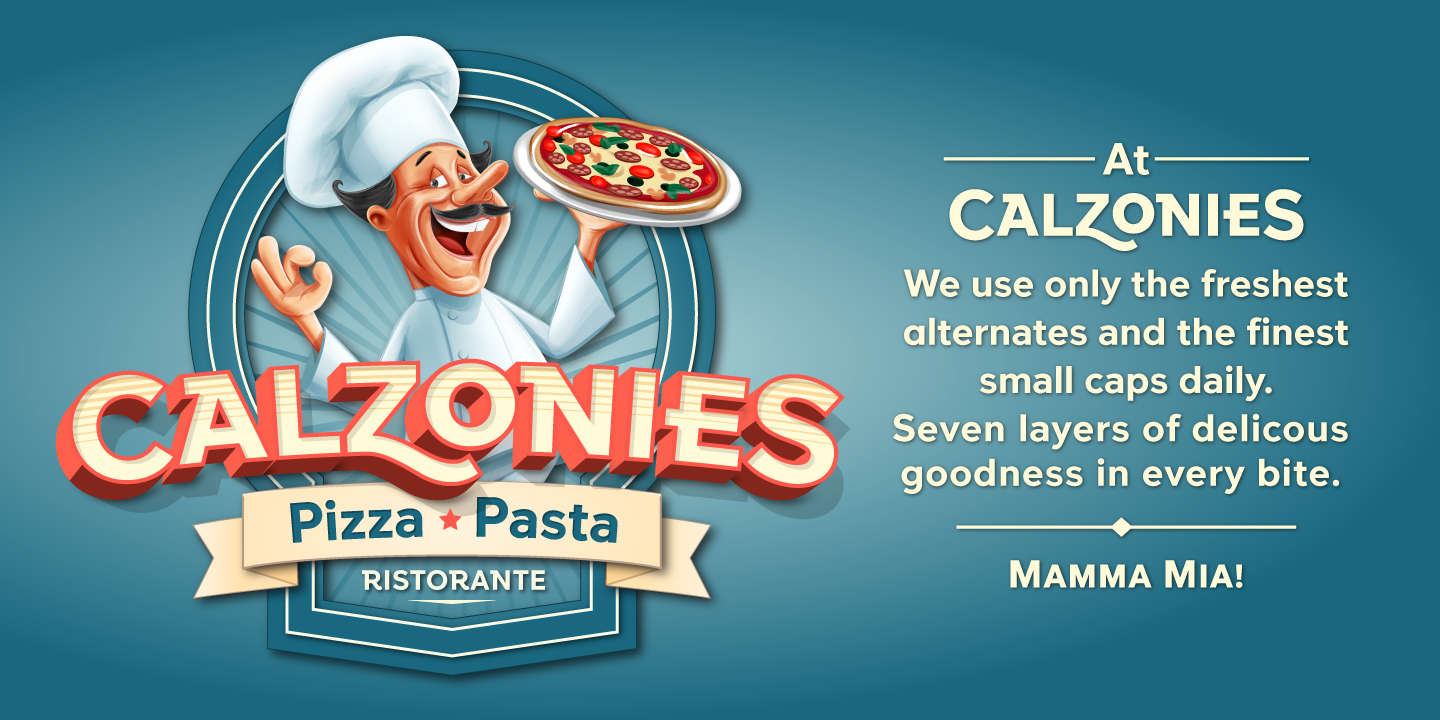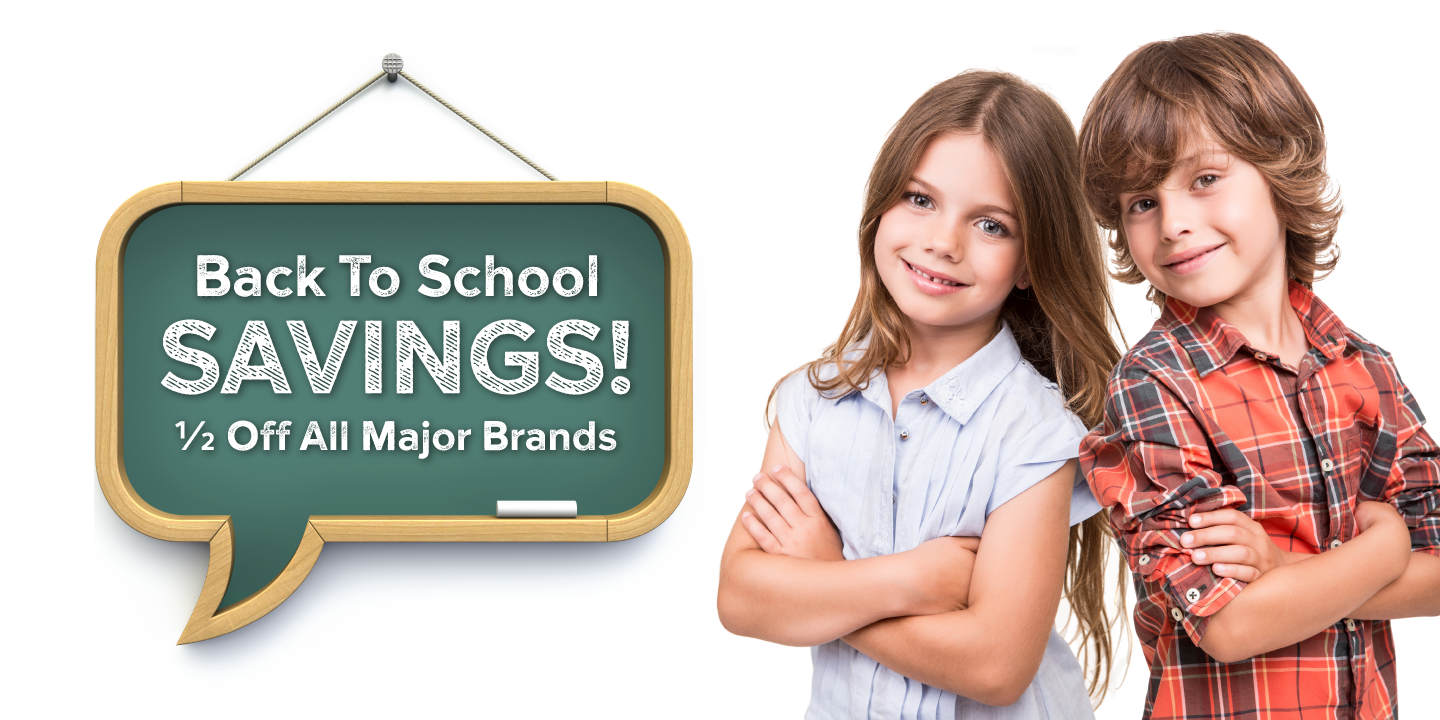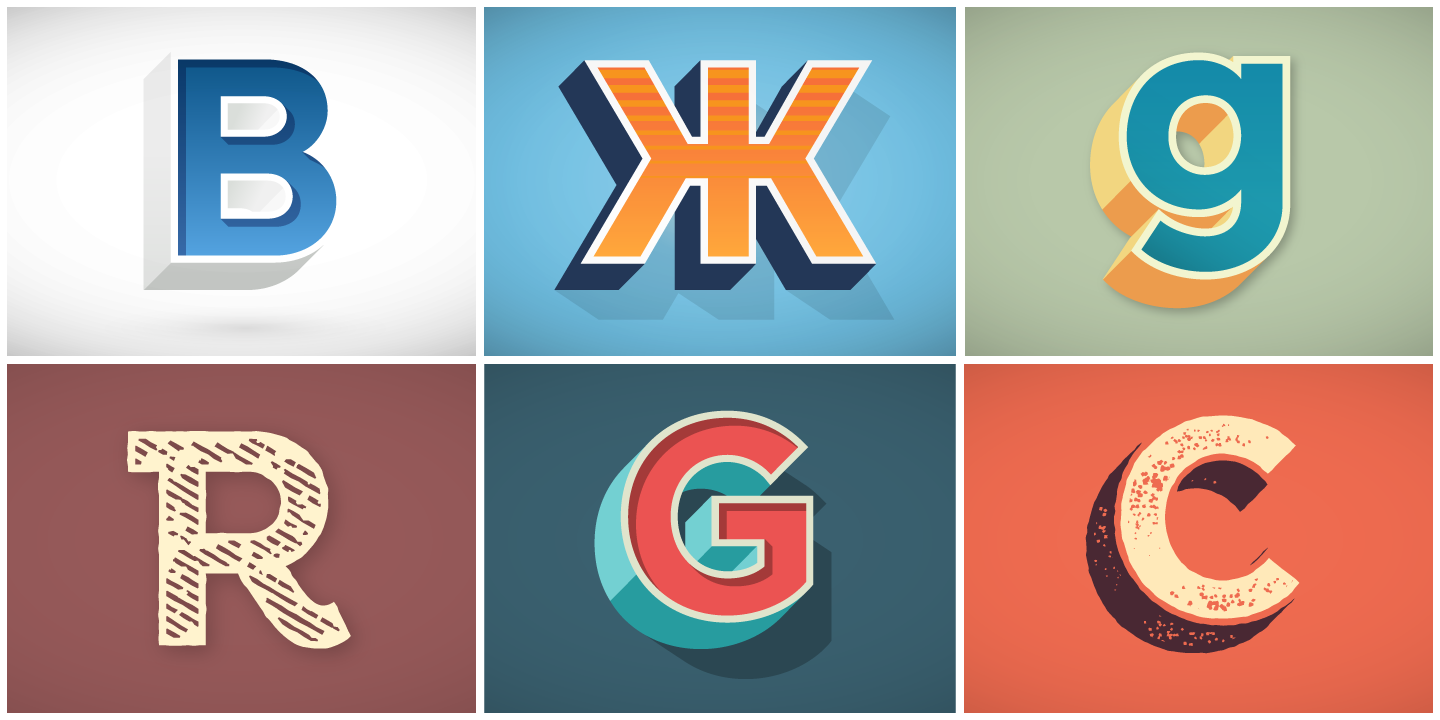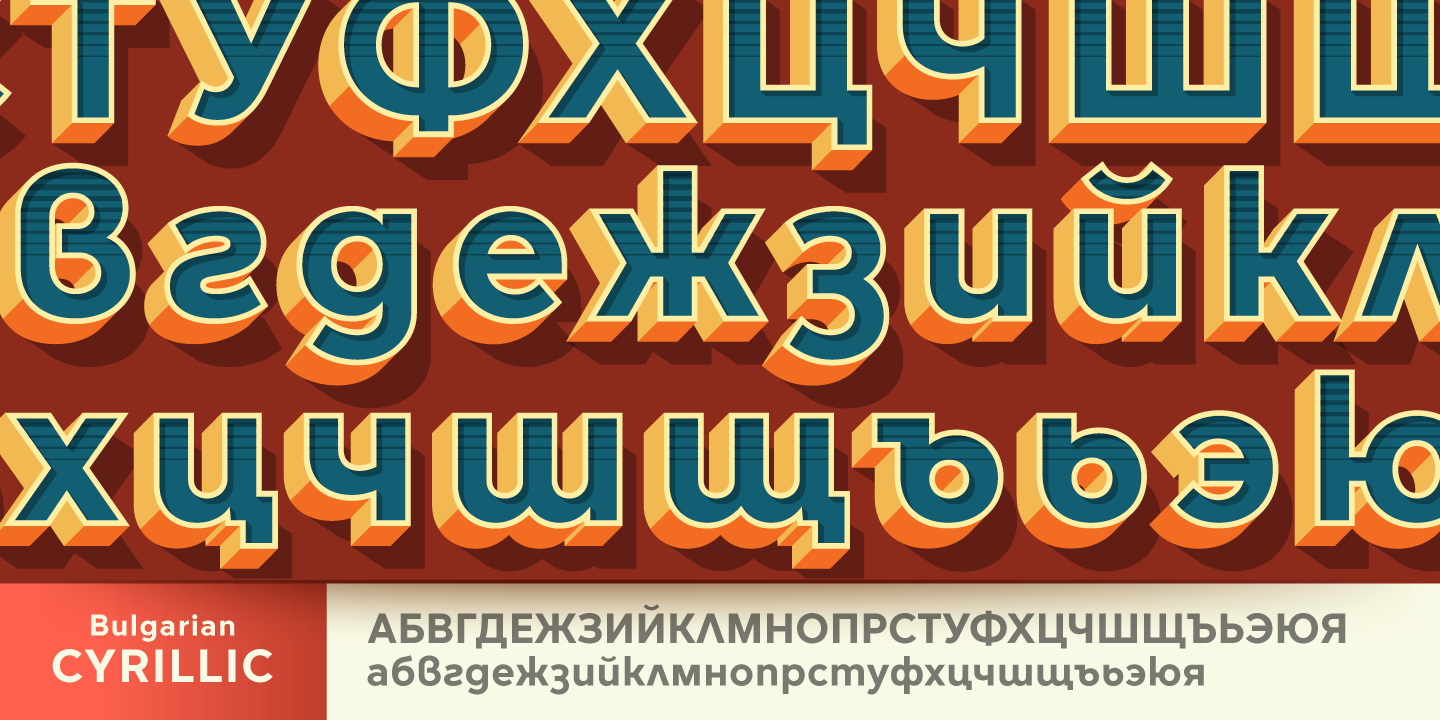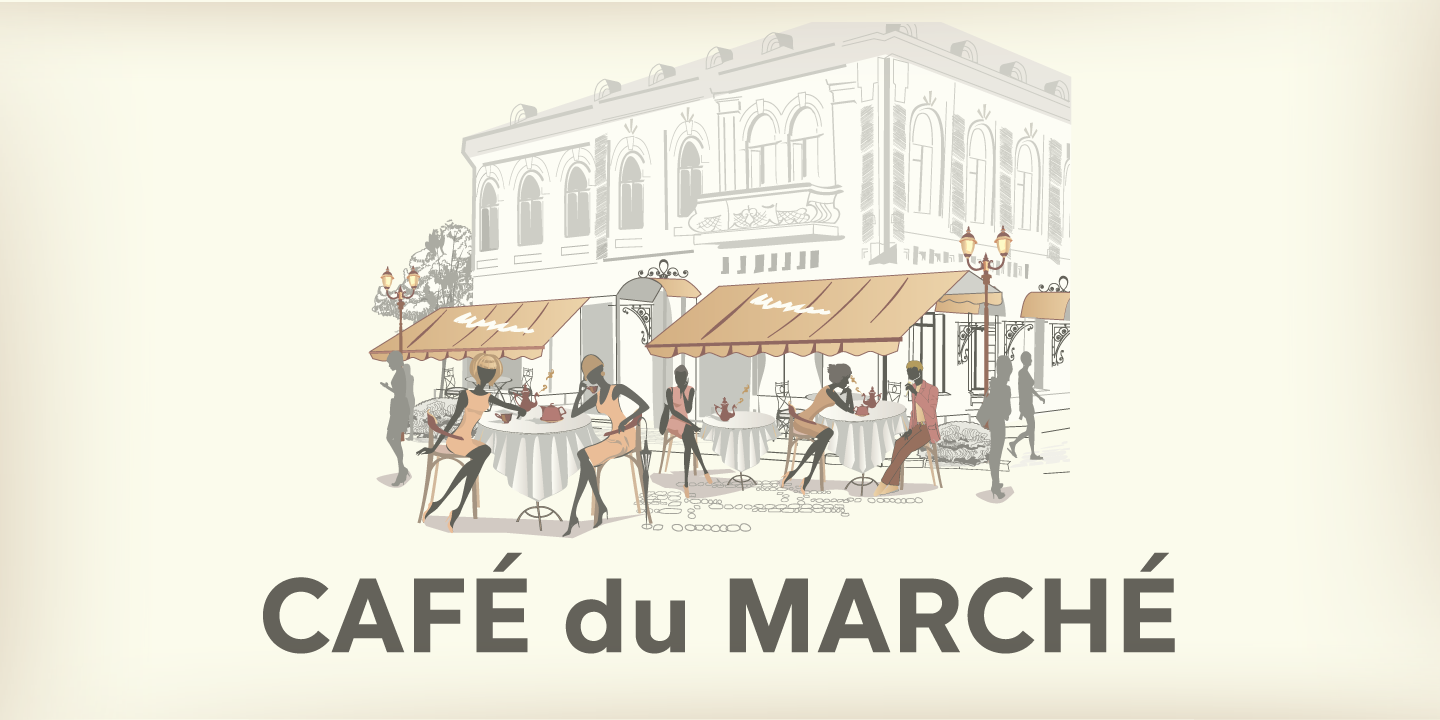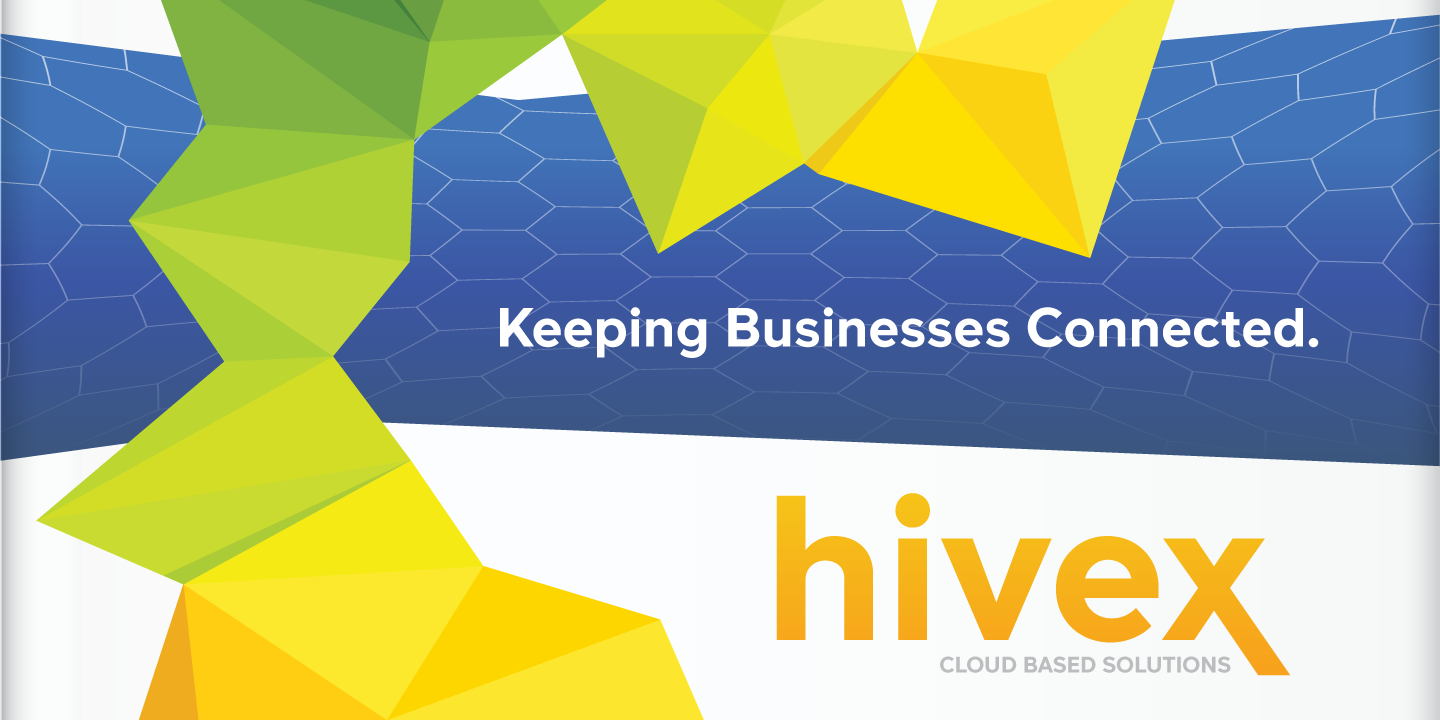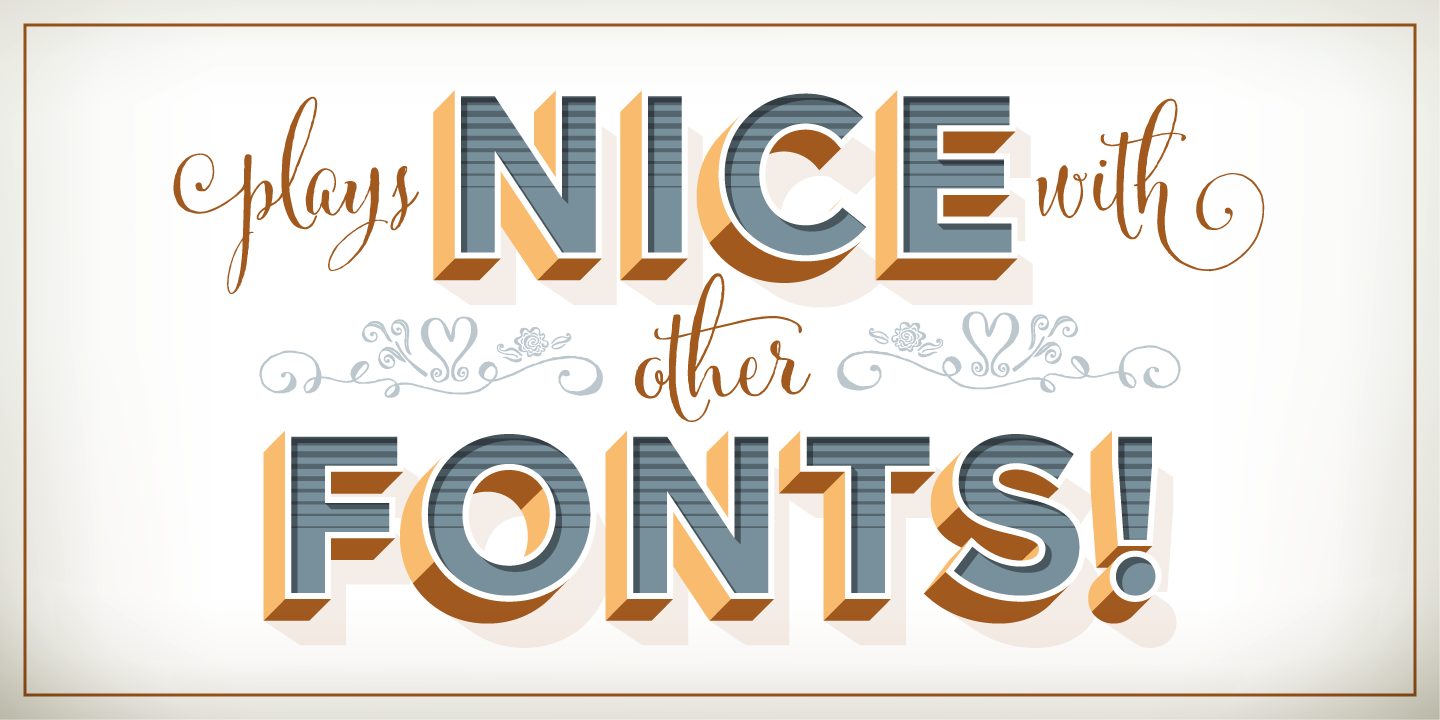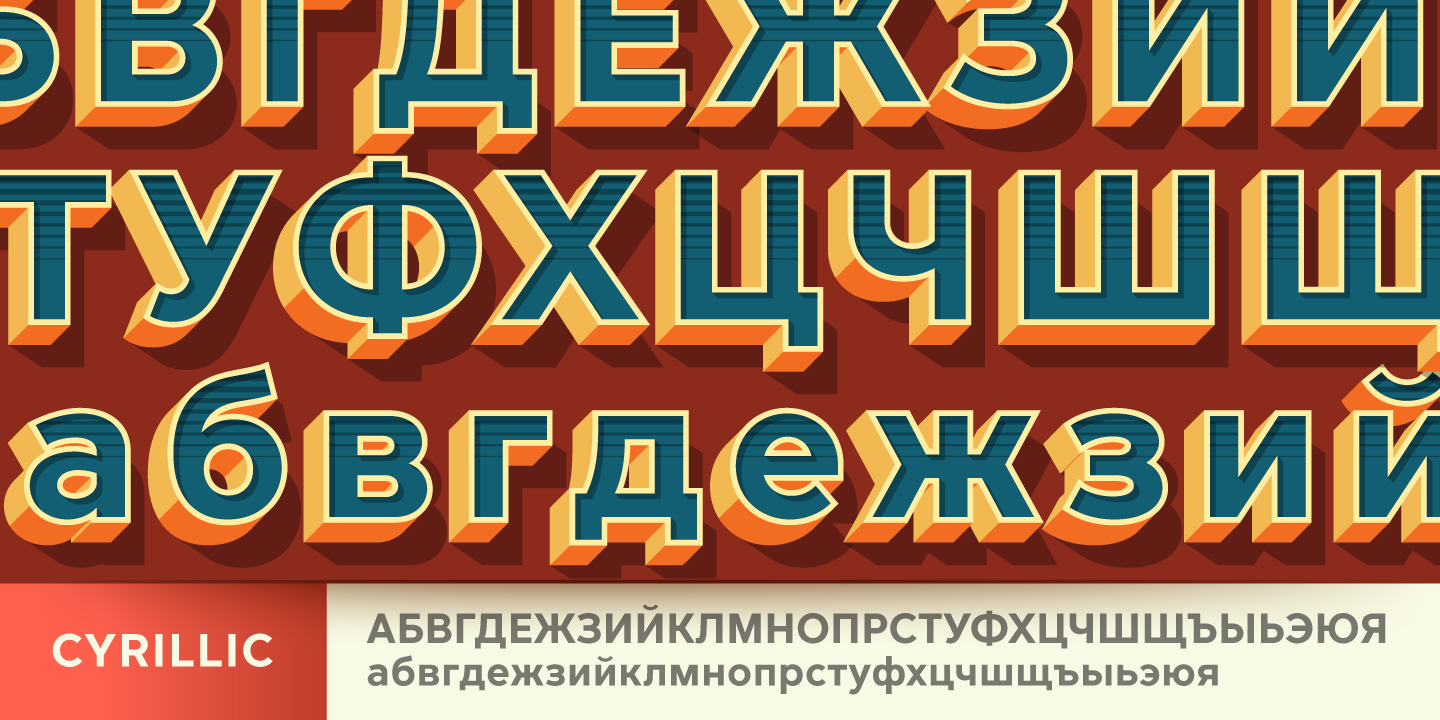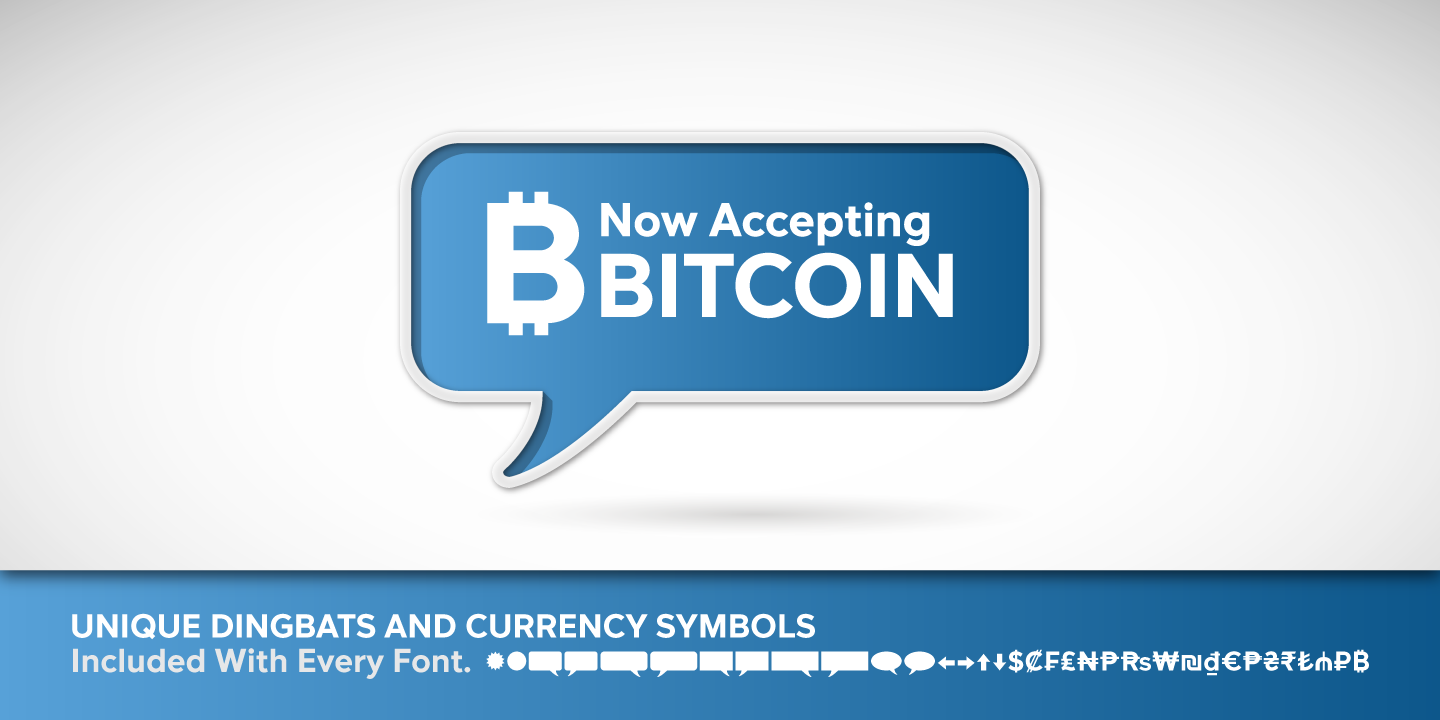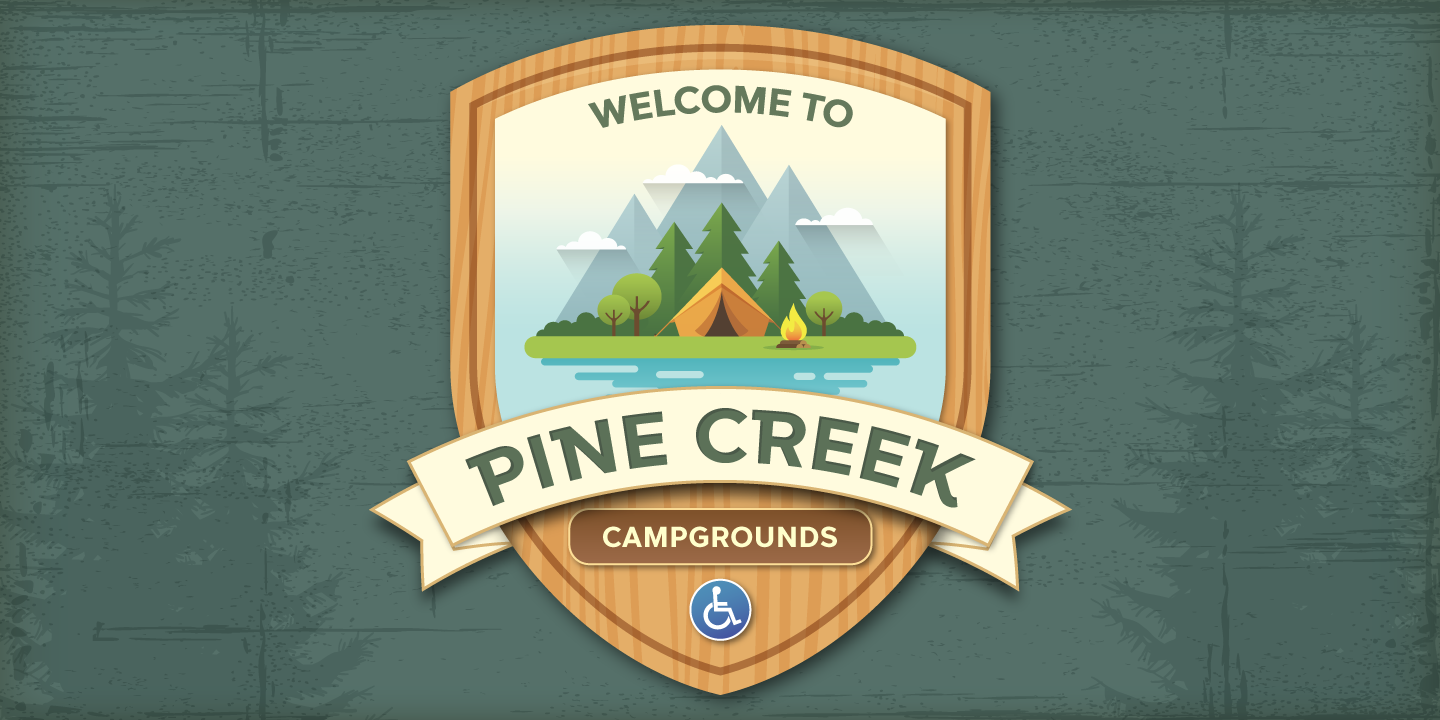
Versatile Hatch Bold Family (7 fonts)
Versatile is not just for the Graphic Designer. It’s well suited for the Sign Maker, Cricut and Silhouette users, and anyone else who uses a vinyl plotter. It weeds beautifully in cut vinyl. Its different layers allow the user to stack multi-colored vinyl to create one a kind signs and displays.
Versatile is ideally suited for advertising and packaging, logo, branding and creative industries, poster and billboards, signage as well as web and screen design.
• Seven Fonts included in each style pack containing: Regular, Cast, Shadow, Highlight Shadow, Out line, Inside Shadow, and Lines. • 1,462 Glyphs (Characters) in each font for a total of 10,234 Glyphs per style pack. • Over 200 Languages supported including Cyrillic, Bulgarian Cyrillic and Greek. • A massive library of Latin, Extended Latin and Cyrillic Alternates including their Diacritic and Small Cap counterparts. • Superscripts, Subscripts, Numerators, Denominators, and Scientific Inferiors. • Small Caps in Latin, Extended Latin and Cyrillic include Numbers, Punctuation, Diacritics and Alternates. • Extended currency symbols including Bitcoin. • Fun assortment of speech bubbles. • Unlimited fractions. • All 1,462 Glyphs have their display equivalents. • PUA Encoded Versatile makes Typography fun!